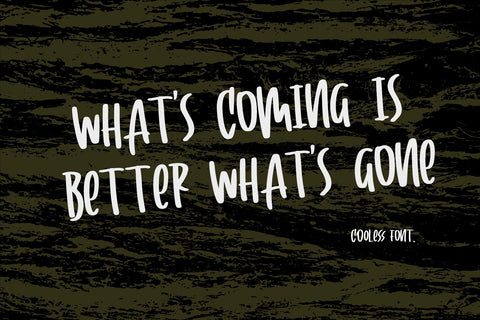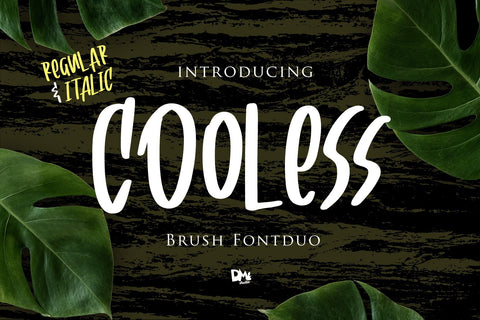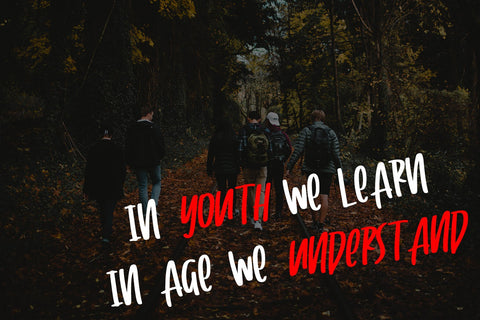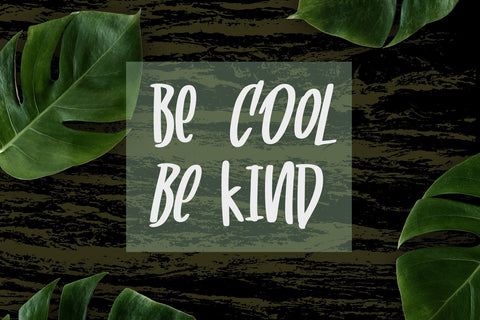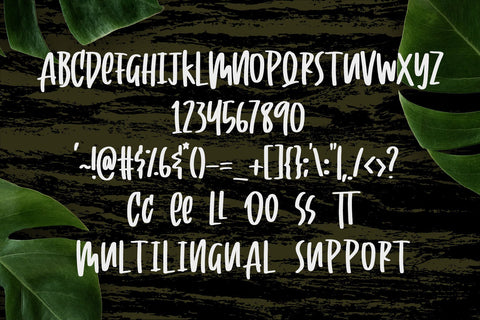
Cooless - Brush Font
Introducing Cooless Brush Font Duo!
Grab this modern, catchy and stylish brush font for your crafty project! Great for your craft, tshirt, card or printing project, business project, and much more!
Including regular and italic version
- ALL IN CAPS character set
- Numeric
- Standard Punctuation and symbols
- Ligatures CC, EE, LL, OO, SS, TT
- Regular and Italic Version